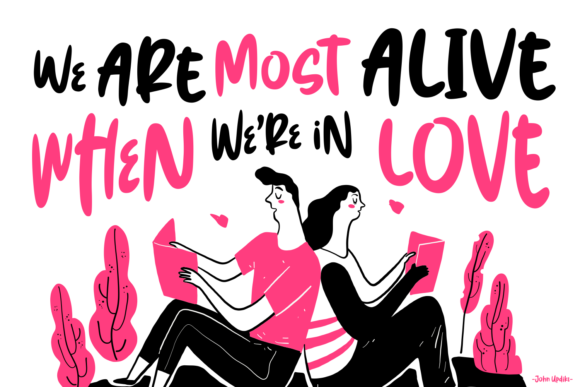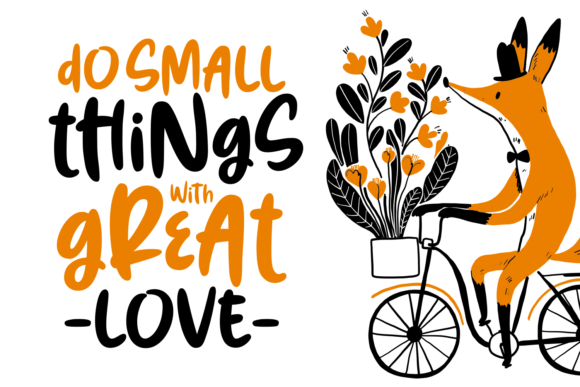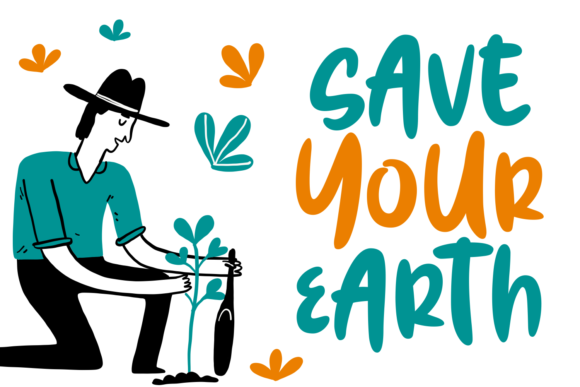
Introducing Brush Hours Font: The Perfect Addition to Your Design Arsenal
Are you tired of using the same old fonts in your design projects? Look no further than Brush Hours Font, a fun and dynamic typeface that’s sure to add a unique twist to your creations. With its fresh feel and playful vibe, Brush Hours is the perfect choice for designers and crafters looking to make their mark.
The Inspiration Behind Brush Hours Font
Brush Hours Font is the brainchild of talented designers who sought to create a font that’s both stylish and approachable. The inspiration behind this font comes from the world of hand-drawn typography, where every letter and stroke is infused with personality and character. The result is a font that’s not only visually appealing but also highly versatile.
Key Features of Brush Hours Font
- Unique and Playful Design: Brush Hours Font boasts a distinctive design that’s sure to turn heads. Its playful strokes and irregular shapes give it a charming, hand-crafted feel that’s perfect for designs that need a personal touch.
- Fresh and Modern Feel: Unlike traditional fonts that can feel stale and overused, Brush Hours Font has a fresh and modern feel that’s perfect for designers looking to create something new and exciting.
- Highly Versatile: Whether you’re working on a logo, brochure, or social media graphic, Brush Hours Font is the perfect choice. Its versatility ensures that it can be used in a wide range of design projects, from formal to informal.
- Easily Readable: Despite its playful design, Brush Hours Font is surprisingly easy to read, making it perfect for body text and headlines.
How to Use Brush Hours Font in Your Design Projects
Brush Hours Font is incredibly easy to use and can be incorporated into your design projects in a variety of ways. Here are a few ideas to get you started:
- Logos and Branding: Use Brush Hours Font to create a unique and memorable logo that sets your brand apart from the competition.
- Social Media Graphics: Add a touch of personality to your social media graphics with Brush Hours Font. It’s perfect for creating eye-catching posts and stories.
- Brochures and Flyers: Use Brush Hours Font to add some visual interest to your brochures and flyers. Its playful design is sure to grab attention and make your marketing materials stand out.
- Invitations and Cards: Brush Hours Font is perfect for creating invitations, greeting cards, and other paper crafts. Its unique design adds a personal touch that’s sure to delight.
Tips for Getting the Most Out of Brush Hours Font
To get the most out of Brush Hours Font, here are a few tips to keep in mind:
- Experiment with Colors: Brush Hours Font looks great in a variety of colors, so don’t be afraid to experiment and find the perfect hue for your design.
- Mix and Match: Try pairing Brush Hours Font with other fonts to create a unique and visually appealing combination.
- Play with Size and Scale: Brush Hours Font looks great in a variety of sizes, so experiment with different scales to add visual interest to your design.